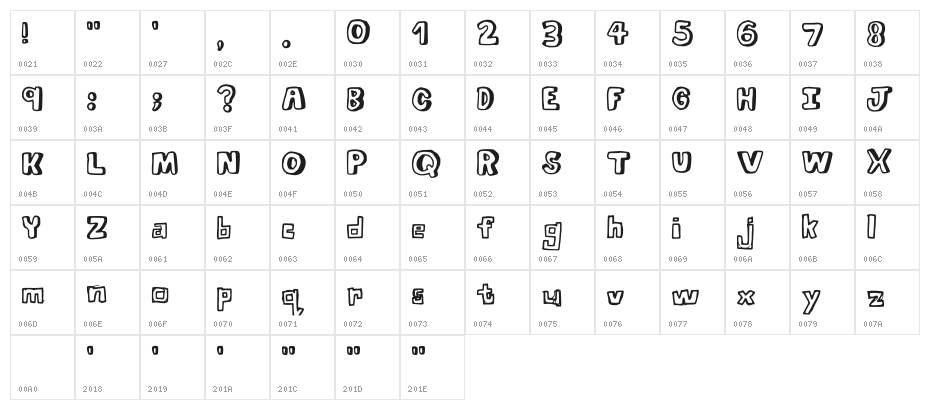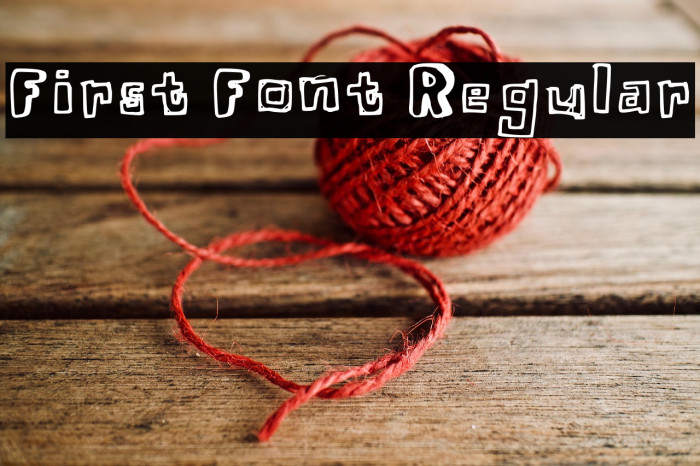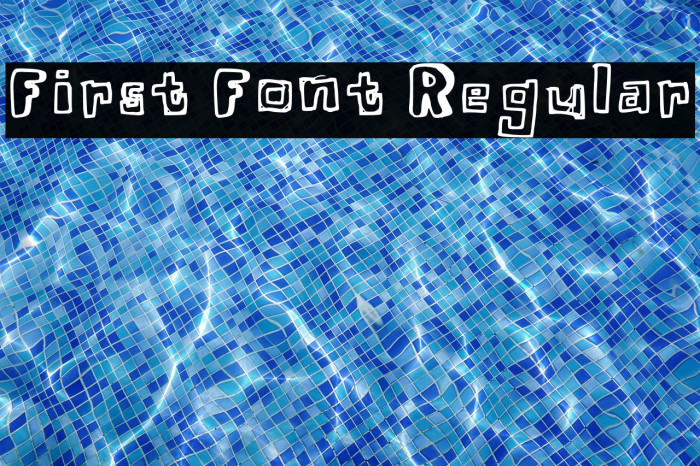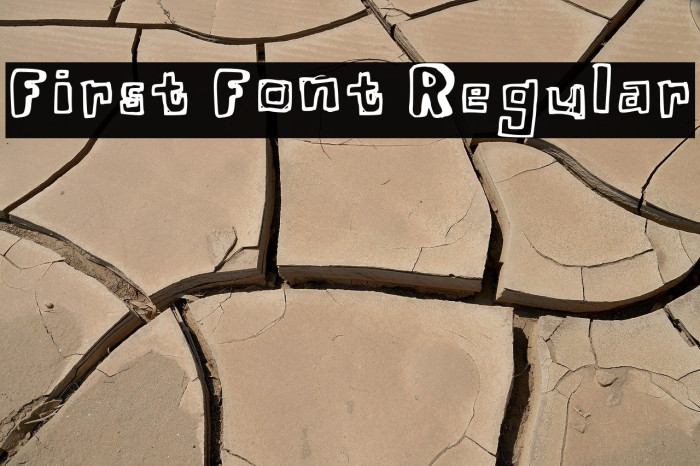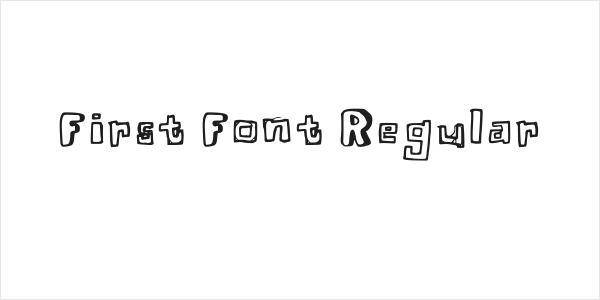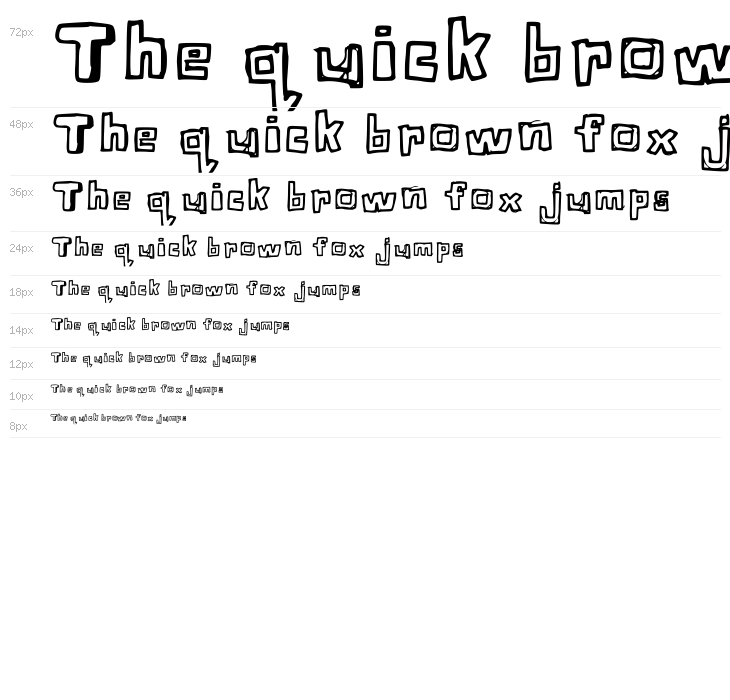
First Font Regular Font
First Font Regular Description
This font features a playful and bold design with a hand-drawn aesthetic. The characters are outlined with a thick, uneven stroke, giving them a cartoonish and informal appearance. Each letter and number has a unique, slightly irregular shape, adding to the whimsical charm of the font. The uppercase and lowercase letters maintain a consistent style, while the numbers and special characters follow the same playful theme. This font is ideal for projects that require a fun and casual look.
| Overall Style | Playful, Cartoonish |
| Proposed Projects | Perfect for children's books, comic strips, playful branding, and creative posters. |